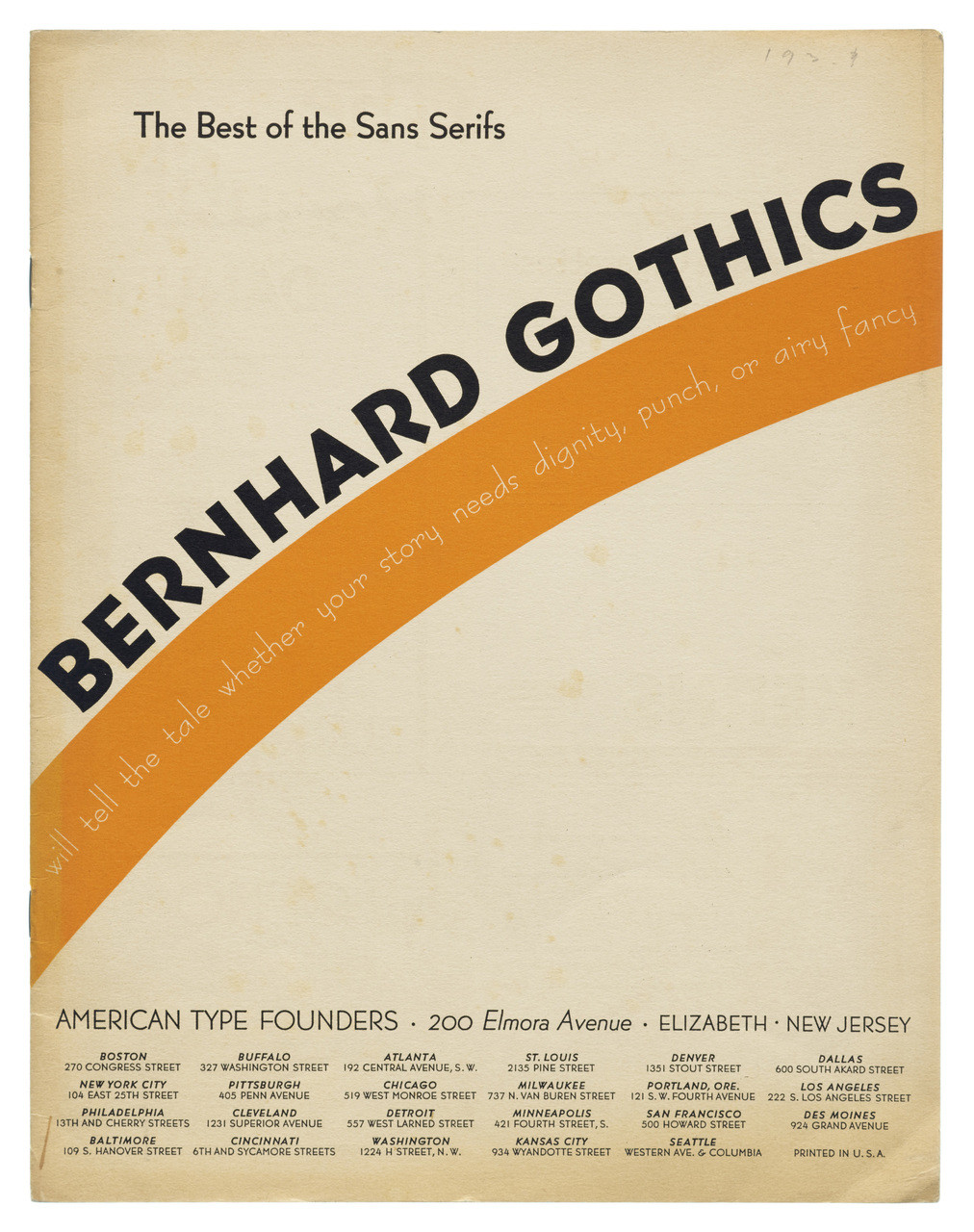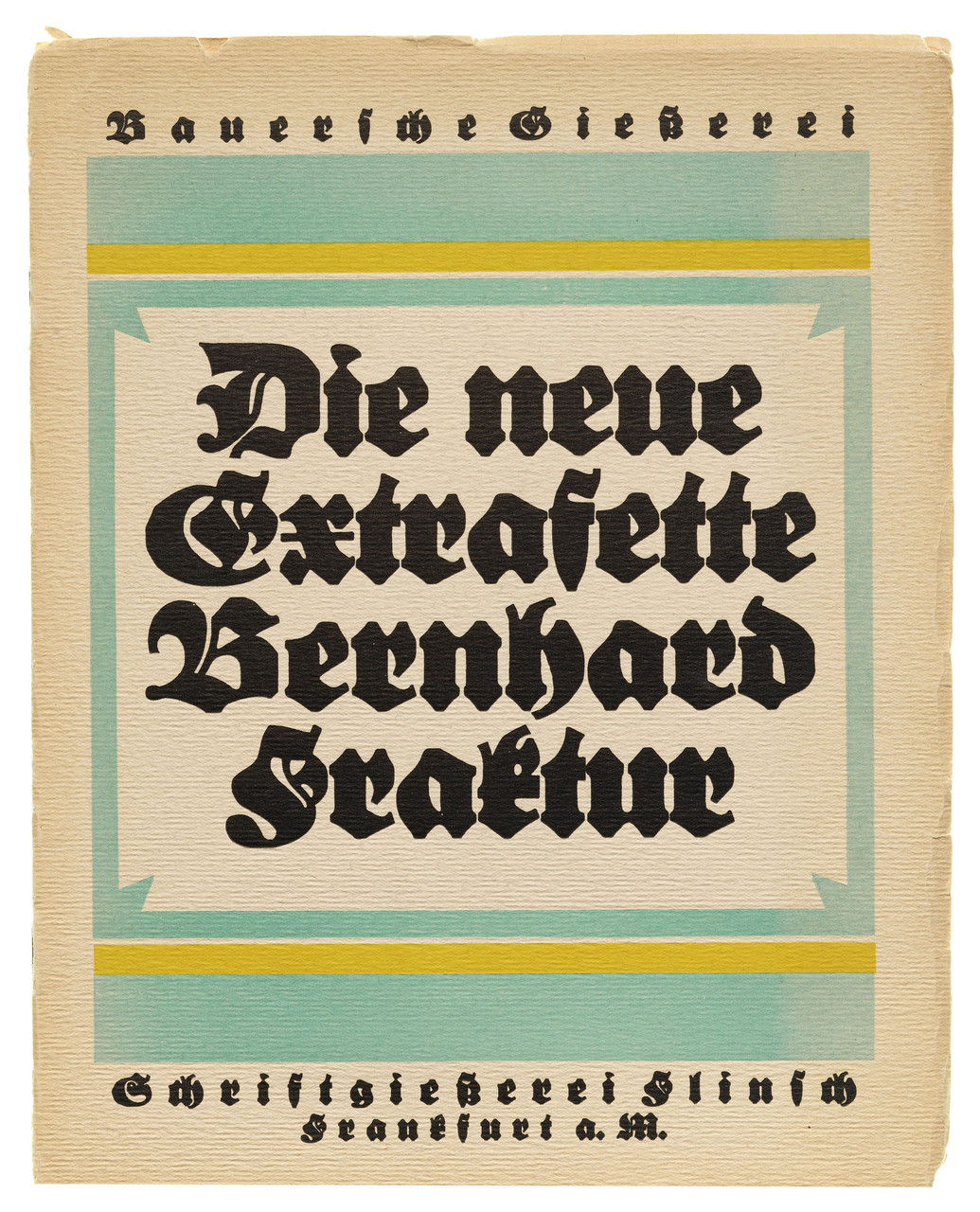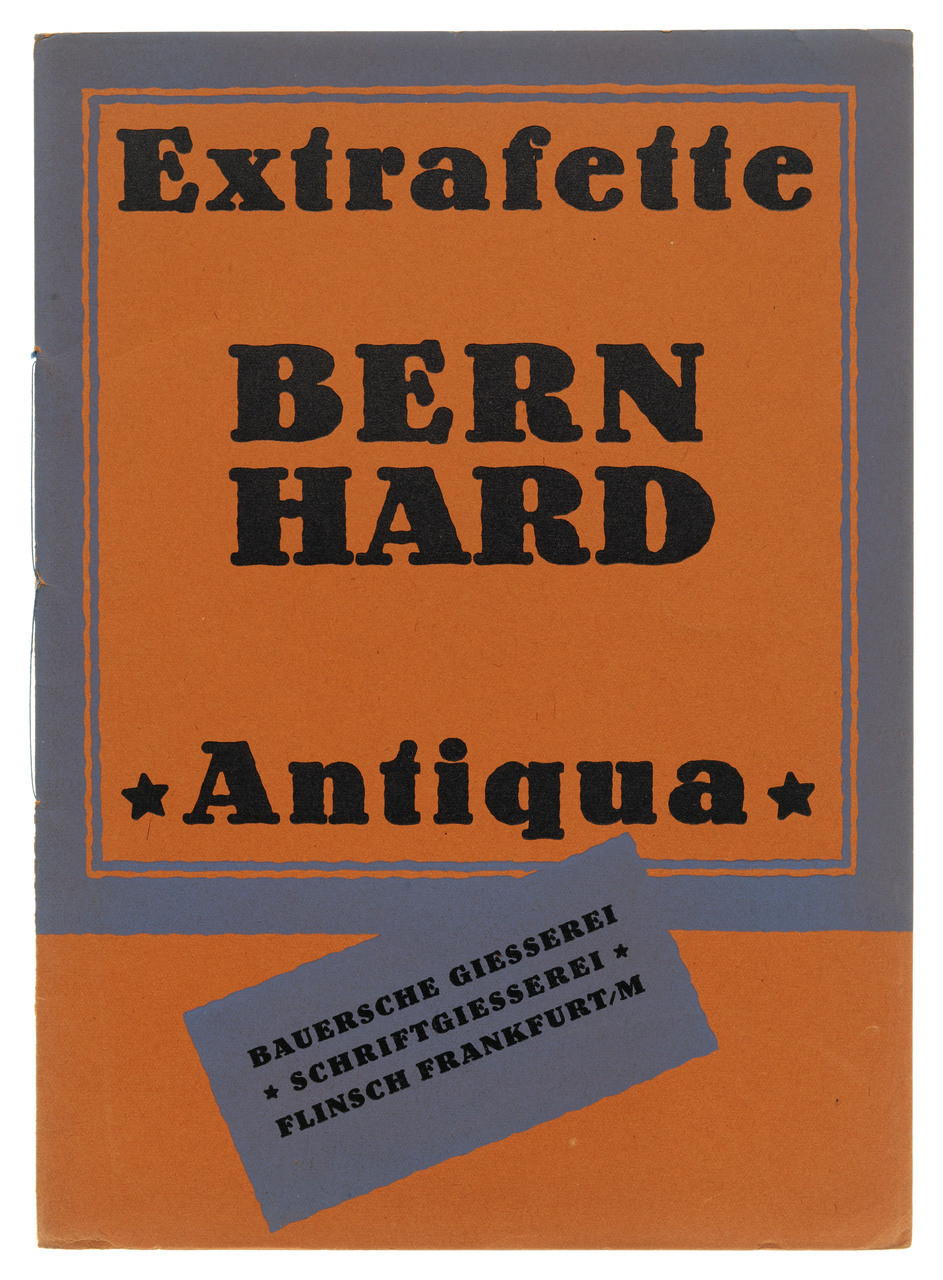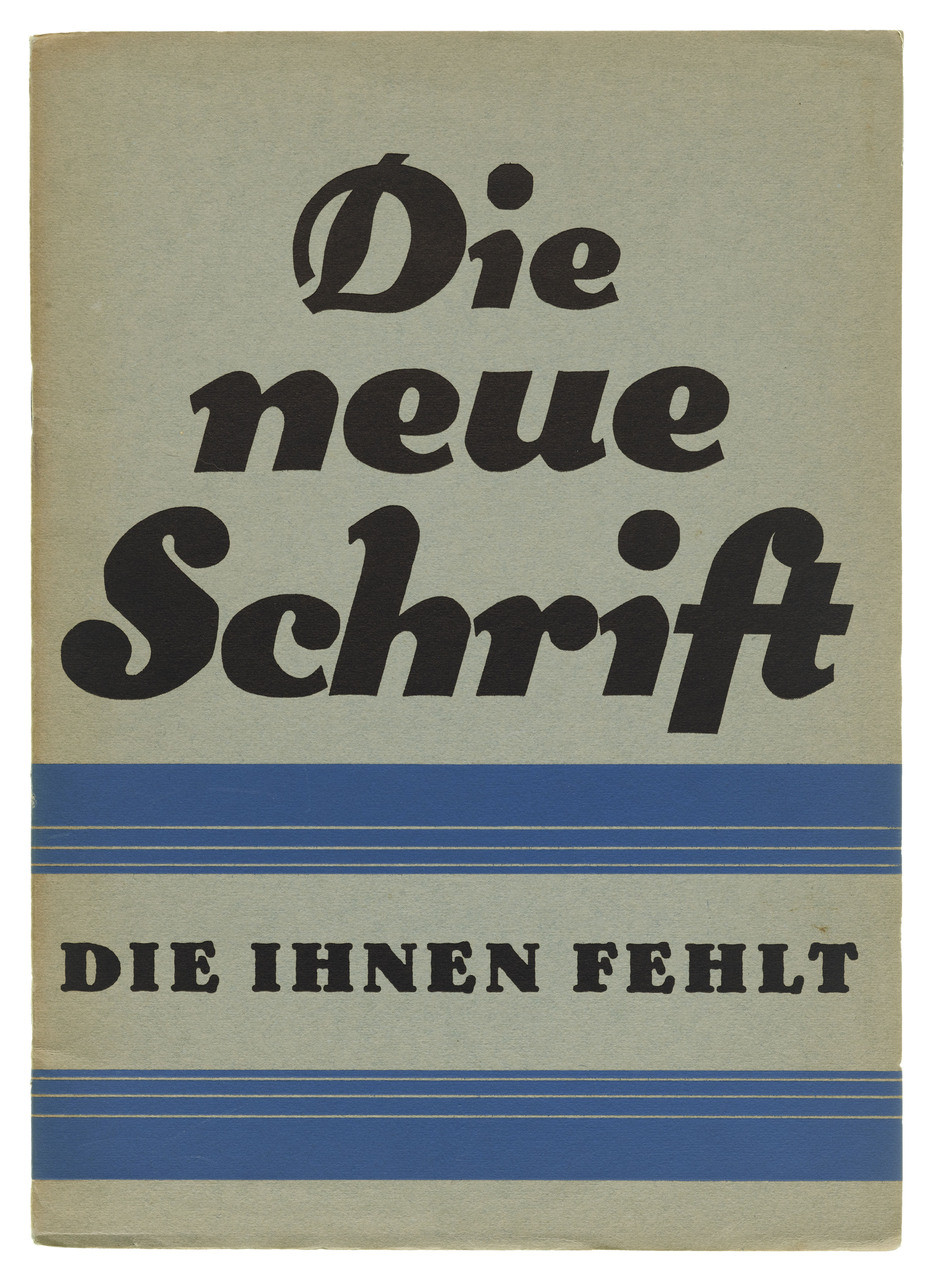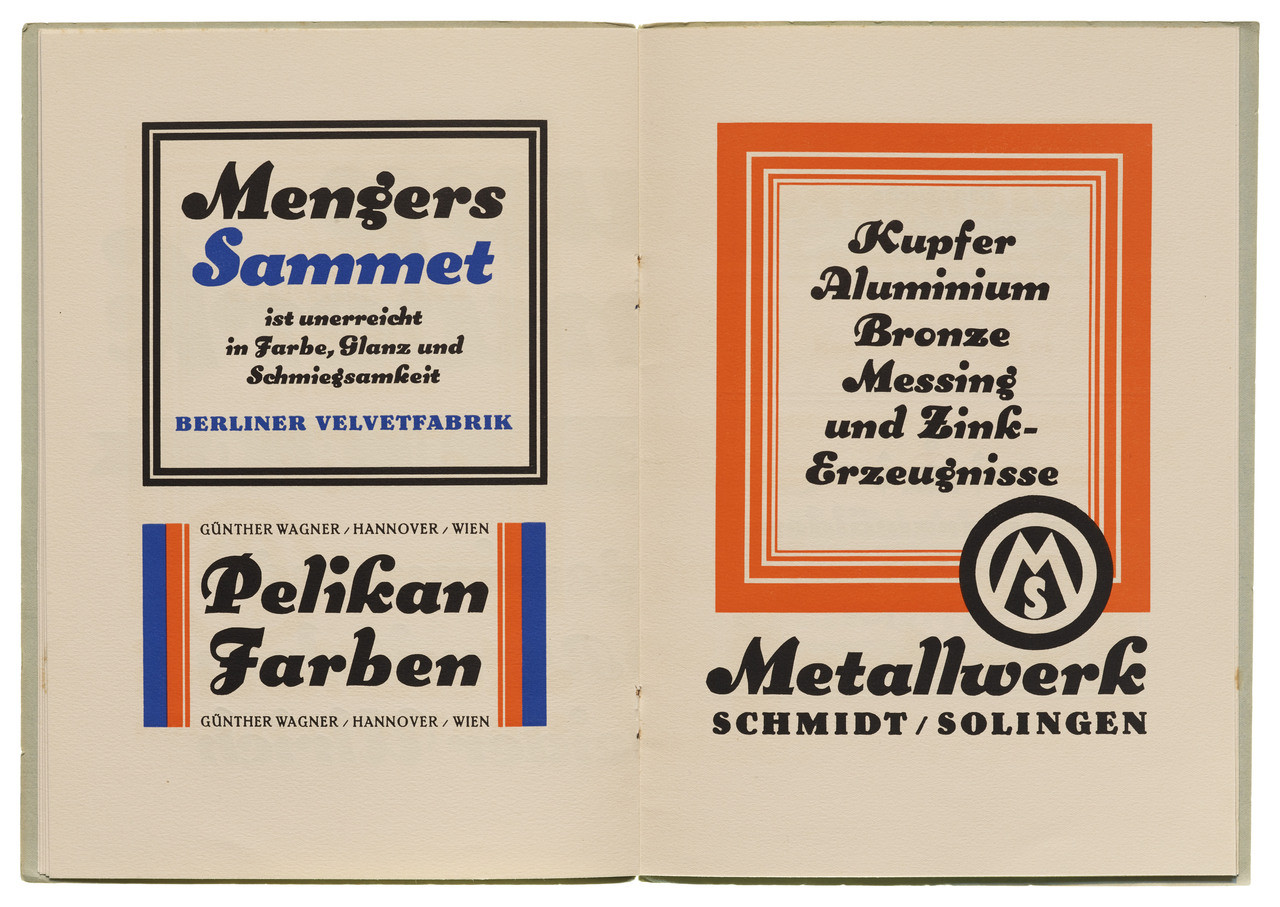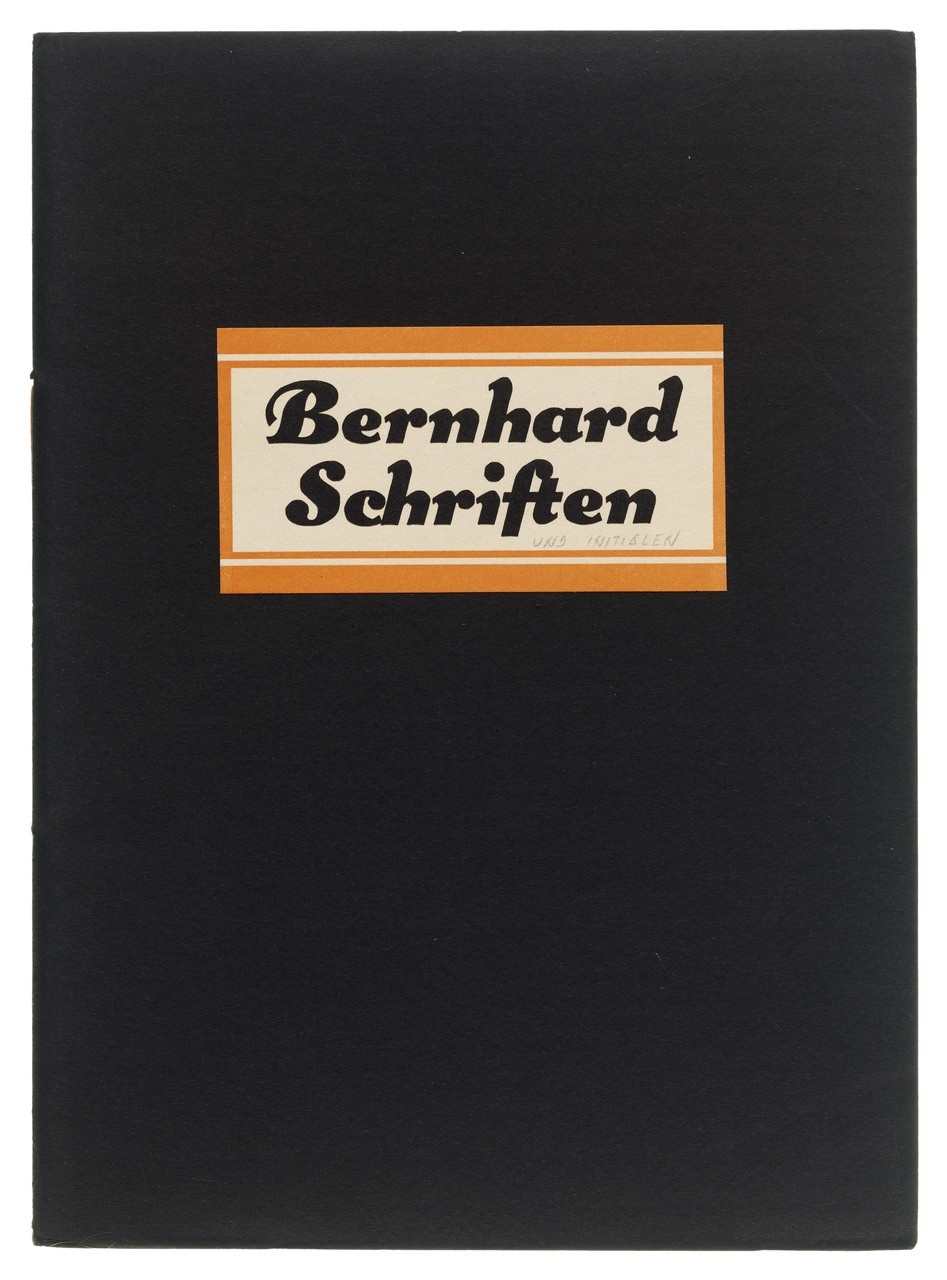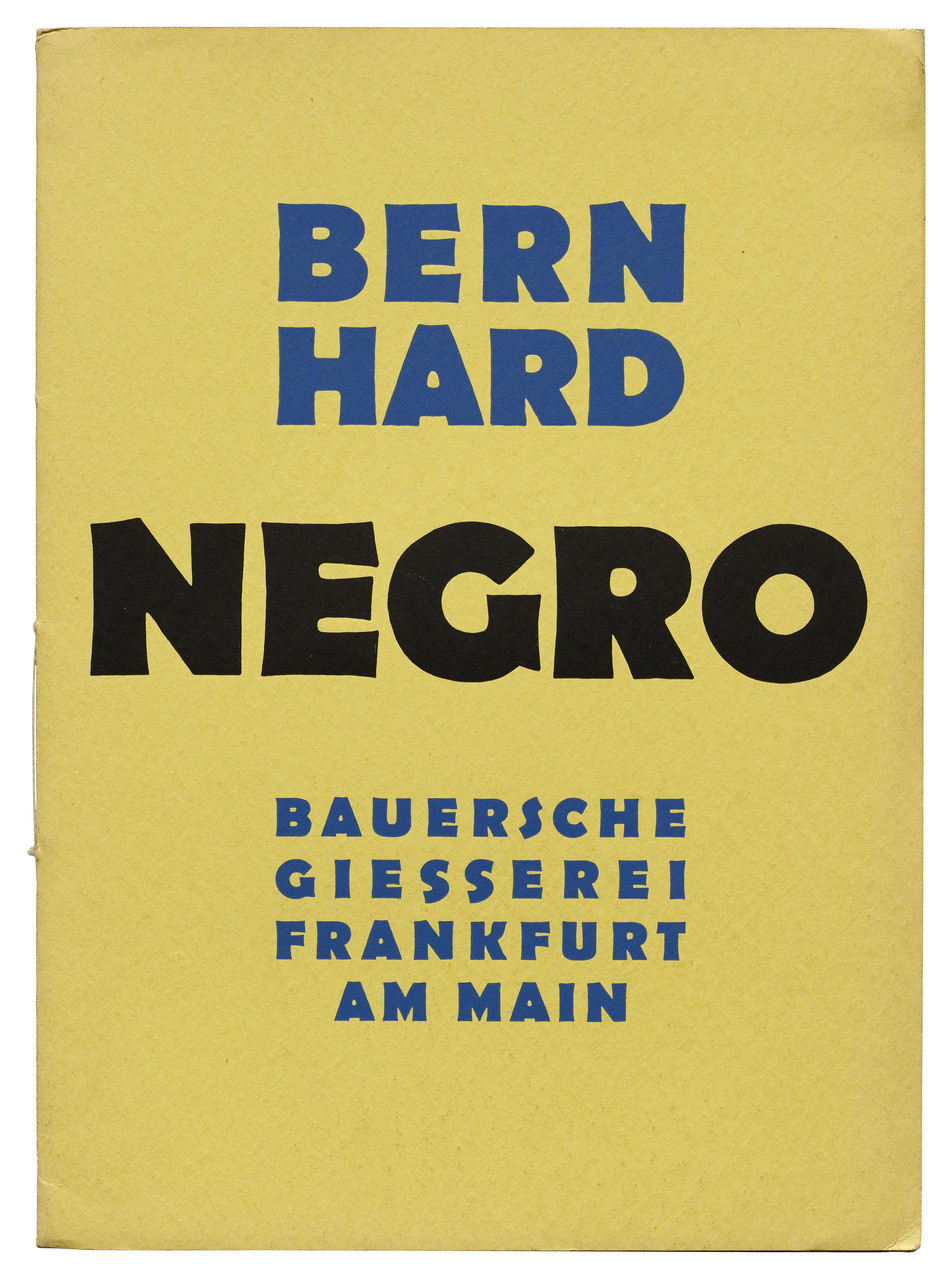
Bold, affable, and unmistakable typefaces from a modern design virtuoso, presented in ten facsimiles of remarkable foundry specimens from the 1910s, ’20s, and ’30s
Small masterpieces from the age of metal type, foundry specimen booklets introduced new typefaces to the world with exquisitely arranged showings and a variety of original in-use examples. Distributed as ephemeral marketing, many are bold visual essays, statements of typographic craft, and prized keepsakes containing essential information about type as it was meant to be seen.
This volume reproduces specimens of typefaces by celebrated German-American designer Lucian Bernhard. Drawn from across his career, the selection showcases Bernhard’s best-known designs, as well as some less familiar gems, and covers a broad range of styles, including roman, italic, script, blackletter, sans serif, and modern display. All ten complete facsimiles match their originals in size and trim. Stacked and bound together in a single volume, with an inside pocket containing a smaller booklet, they offer an unparalleled portrait of a singular career in type.
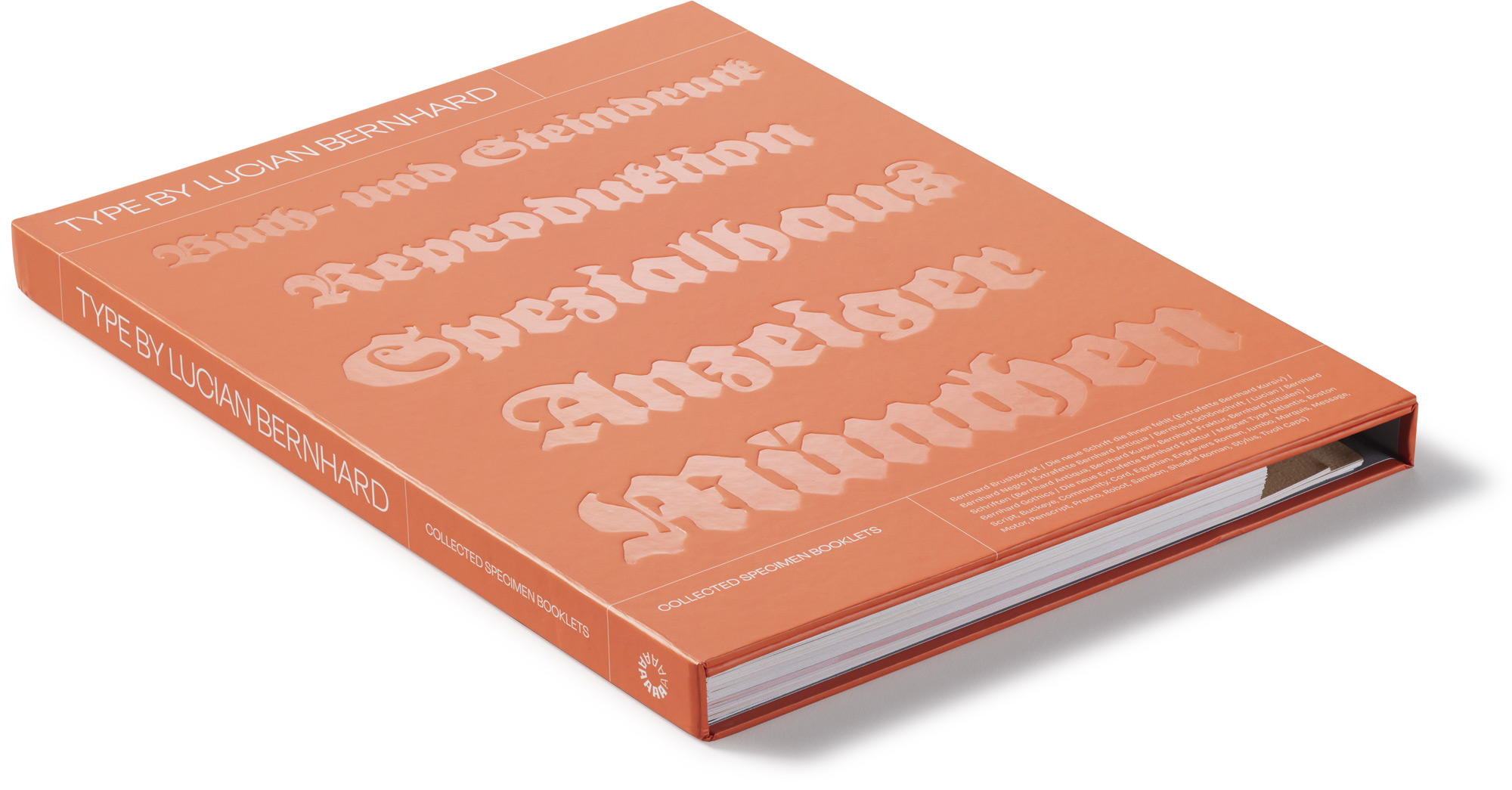
About Lucian Bernhard
Lucian Bernhard (1883–1972) was one of the twentieth century’s most influential and prolific graphic designers. Born in Germany and based in Berlin from 1901 through the mid-1920s, Bernhard spent his later decades in New York. Internationally recognized for his groundbreaking poster designs, he made his first mark in type with the release of Bernhard Antiqua in 1911. Over the following decades, he completed dozens of popular typefaces for the Flinsch and Bauer foundries in Germany, American Type Founders in the United States, and his own photomagnetic lettering service.
The ten specimens feature well-known typefaces such as Bernhard Antiqua (1911), Bernhard Fraktur (1912), Extrafette Bernhard Fraktur (1921), Extrafette Bernhard Antiqua (1924), Bernhard Schönschrift (1925), Extrafette Bernhard Kursiv (1927), Bernhard Handschrift (1928), Lucian (1928), Bernhard Fashion (1929), Bernhard Gothic (1929), and Bernhard Negro (1930).